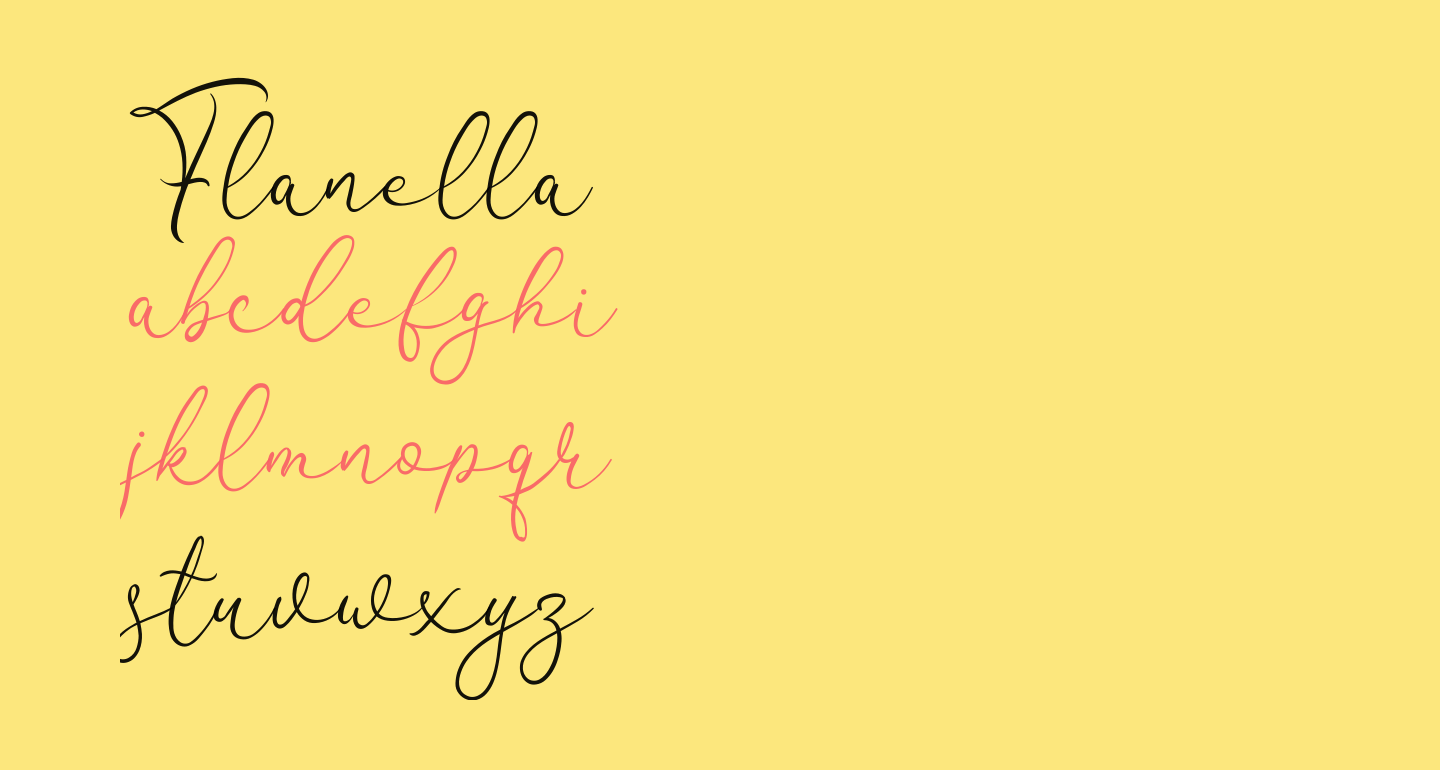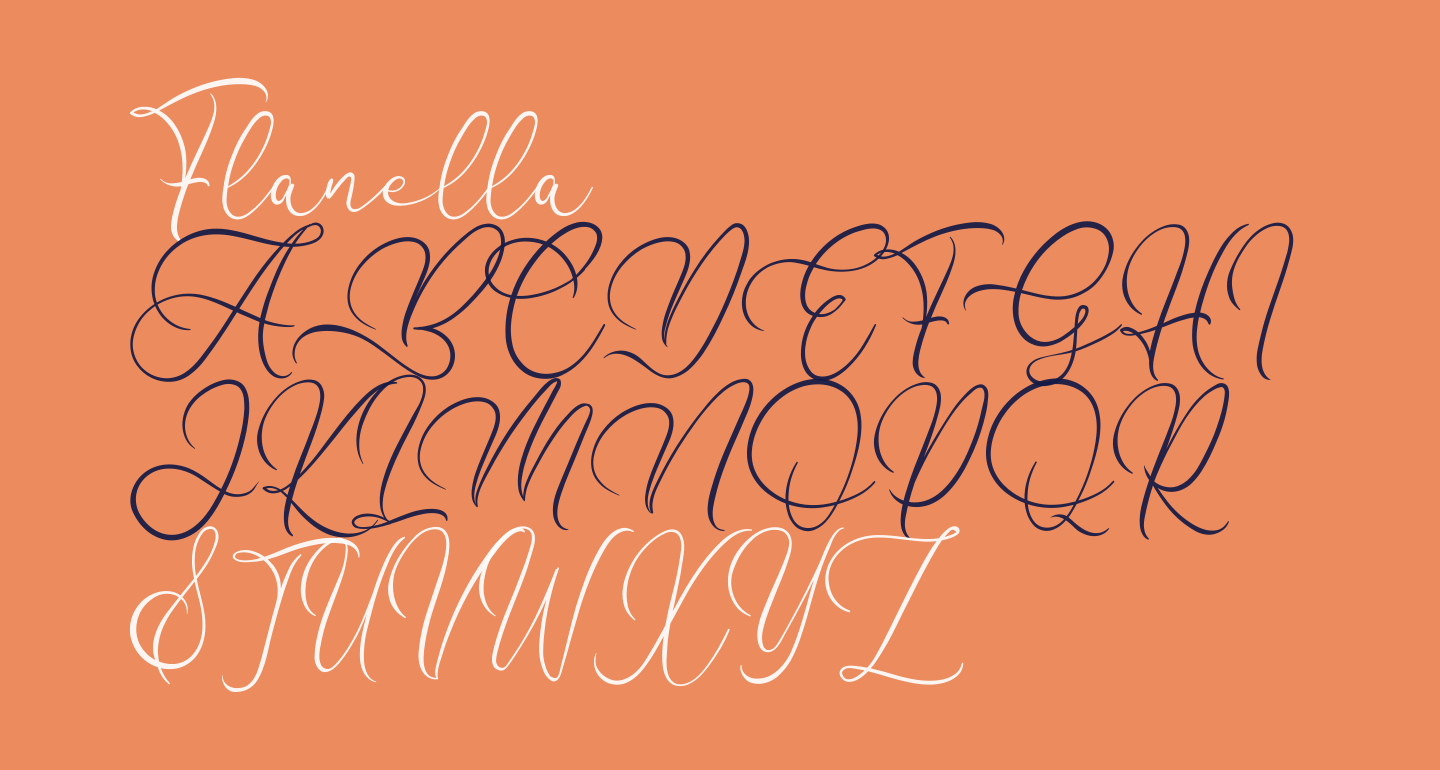
+13 Flanella Font 2023. Flanella is a script type font that can be. ️ customize your own preview on ffonts.net to make sure it`s the right one for your designs.
Web flanella font download is available free from fontget. Web flanella is a script, calligraphy font designed by bangkit tri setiadi. Bangkit tri setiadi took the charge for designing it and releasing.
How about 20,000+ commercial fonts with unlimited. Web if you recognize the font from the samples posted here don't be shy and help a fellow designer. Web flanella an elegant and fancy script font with dancing baseline.
Trusted by millions + easy to use font files + full support. This collection of scripts is perfect for personal. Web flanella font is a script calligraphic font that has an awesome stylish texture.
Flanella is a free font for commercial use created by bangkit tri setiadi. Flanella font is a beautiful script calligraphy typeface that comes in a natural flow with awesome texture. Web flanella font with the regular style belongs to the flanella family.
Web thank you for looking flanella handwritten font. Web the flanella font contains 105 beautifully designed characters. Flanella is a script type font that can be.
Web flanella is a script, calligraphy font designed by bangkit tri setiadi. Web flanella font free download. It’s a handwritten signature script with a natural & stylish flow.